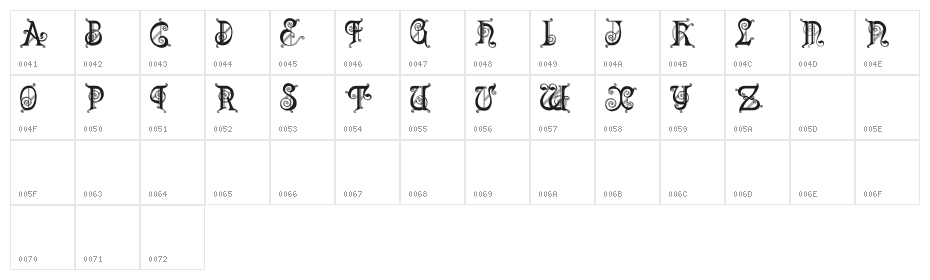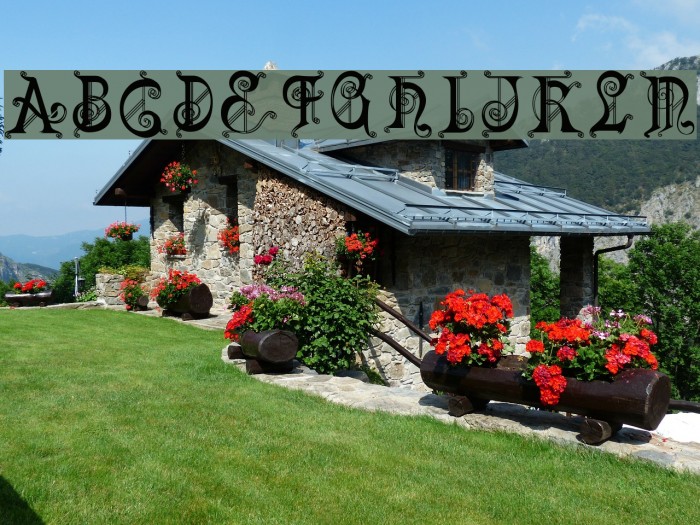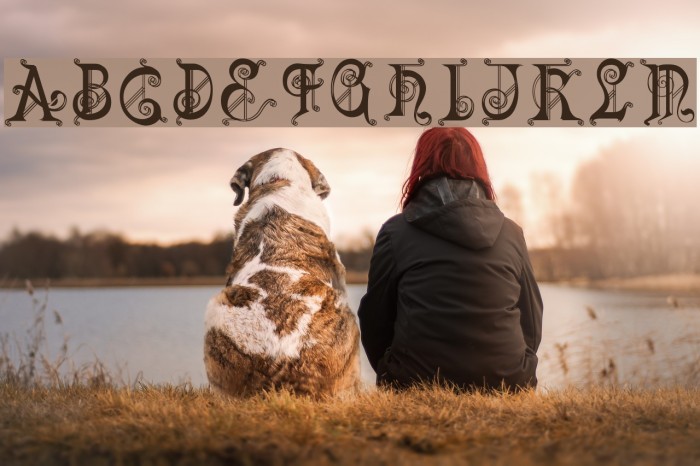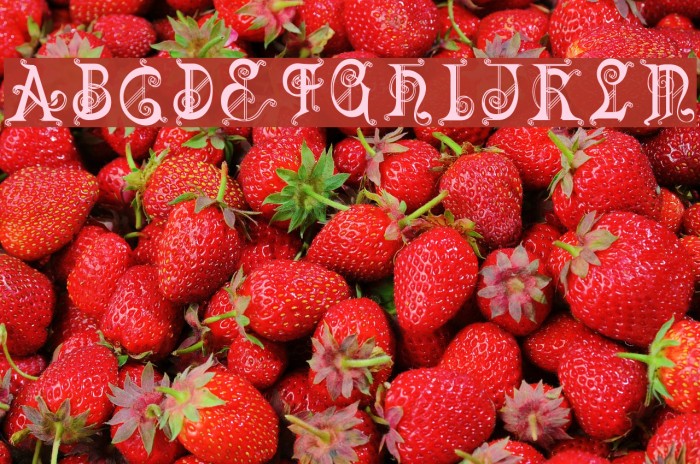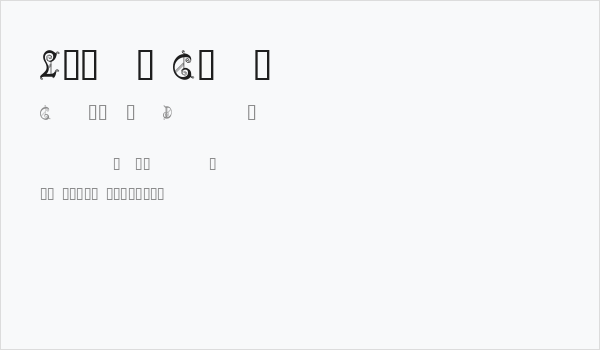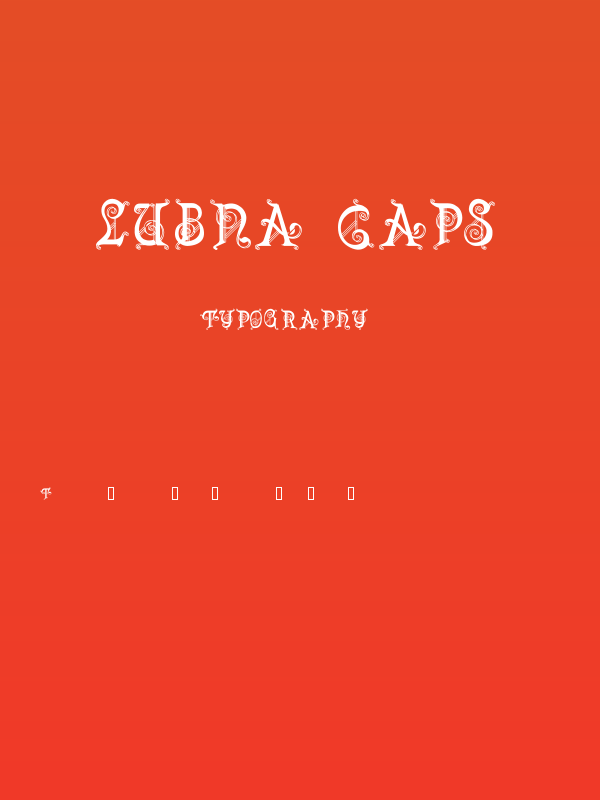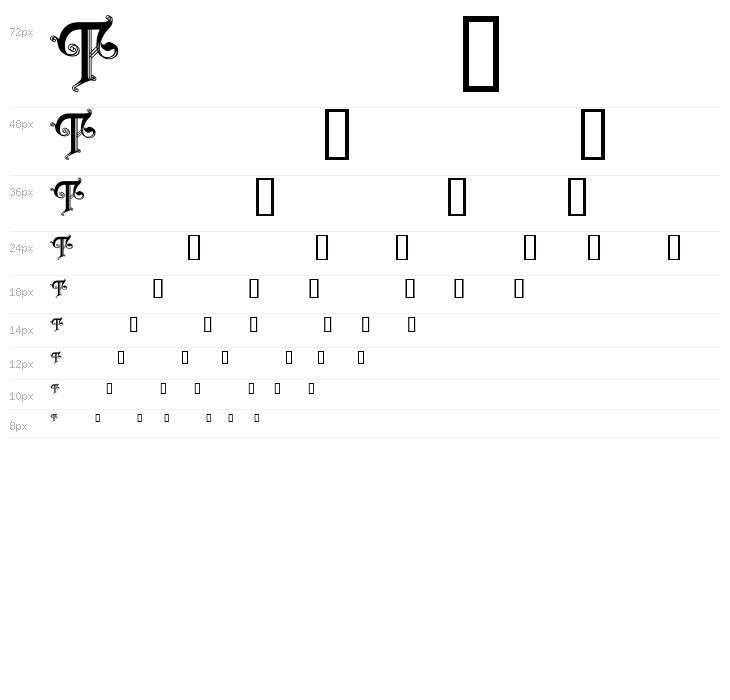
Lubna Caps Font
Lubna Caps Description
This font is an ornate and decorative typeface characterized by its intricate swirls and flourishes. Each letter is adorned with elaborate embellishments, giving it a regal and sophisticated appearance. The uppercase letters are particularly striking, with their bold and artistic design elements that make them stand out. The lowercase letters maintain the same level of detail, ensuring consistency throughout the typeface. This font is perfect for projects that require a touch of elegance and grandeur. Its unique style makes it suitable for invitations, certificates, and other formal documents where a decorative touch is desired.
| Proposed Projects | Ideal for invitations, certificates, and formal documents requiring elegance. |